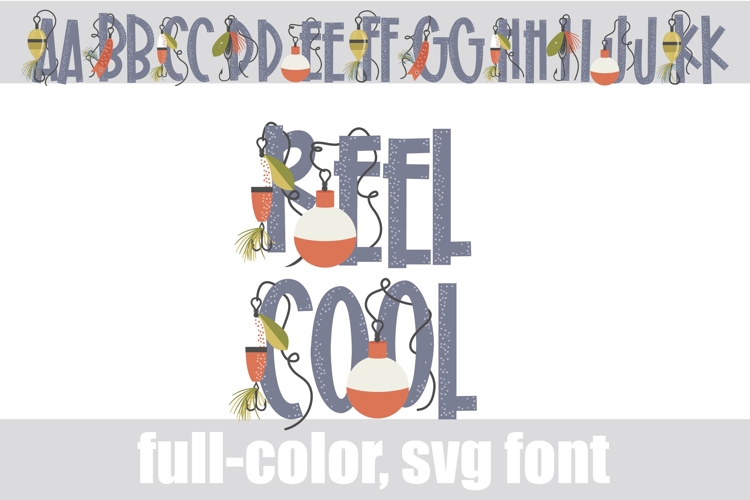
Reel Cool Too Color Font
This full-color, serif font features letters sporting fishing lures. There is a full alt case of both upper and lowercase letters in an additional color that you can access through your system's character map.